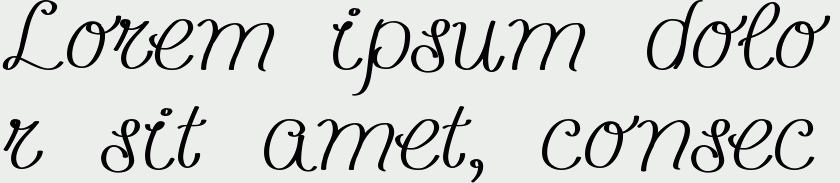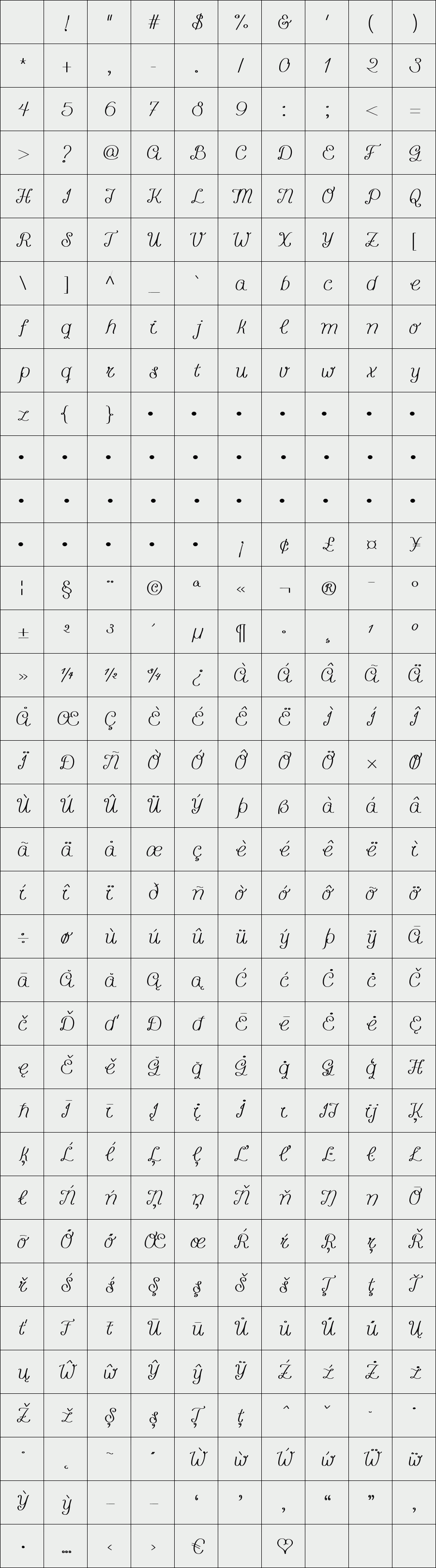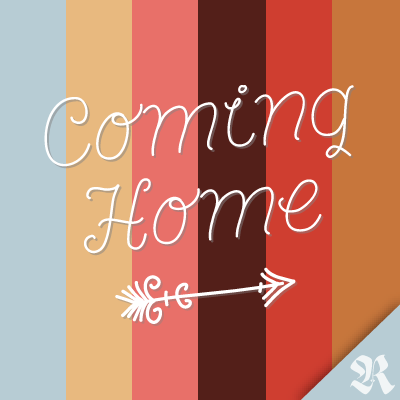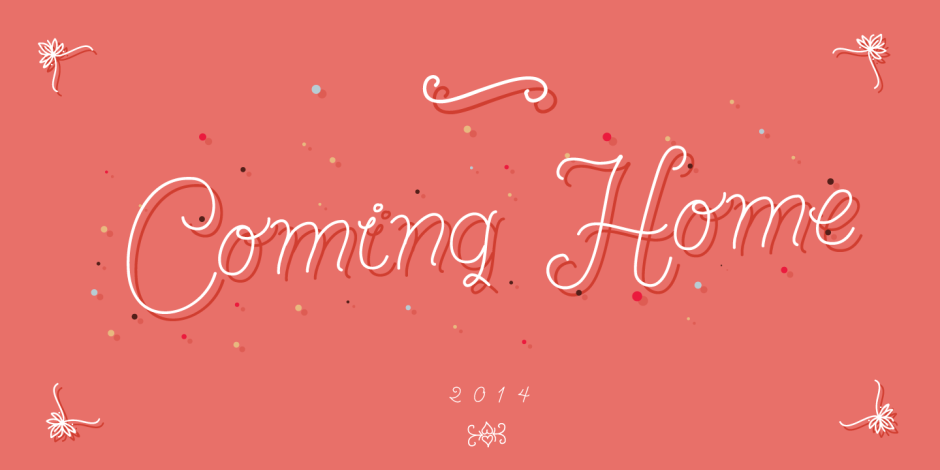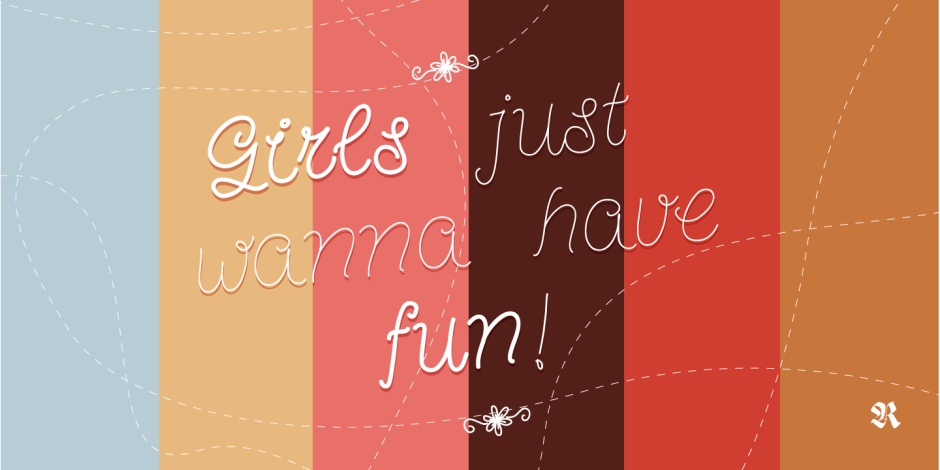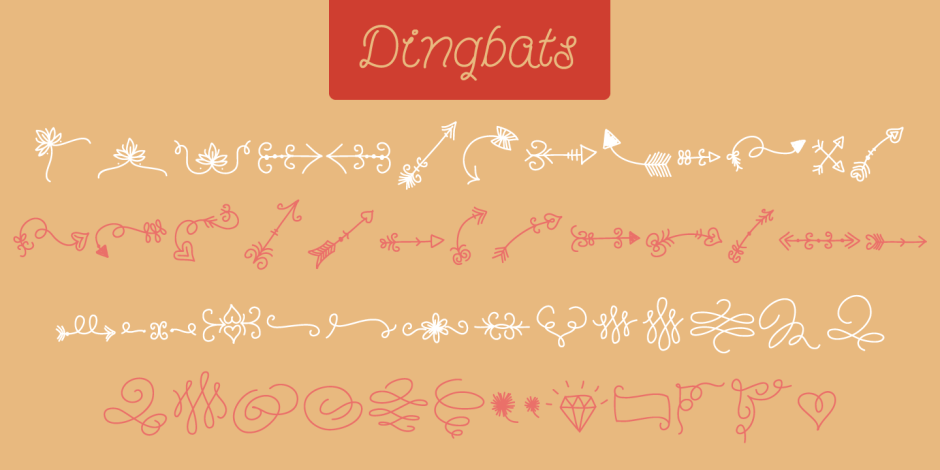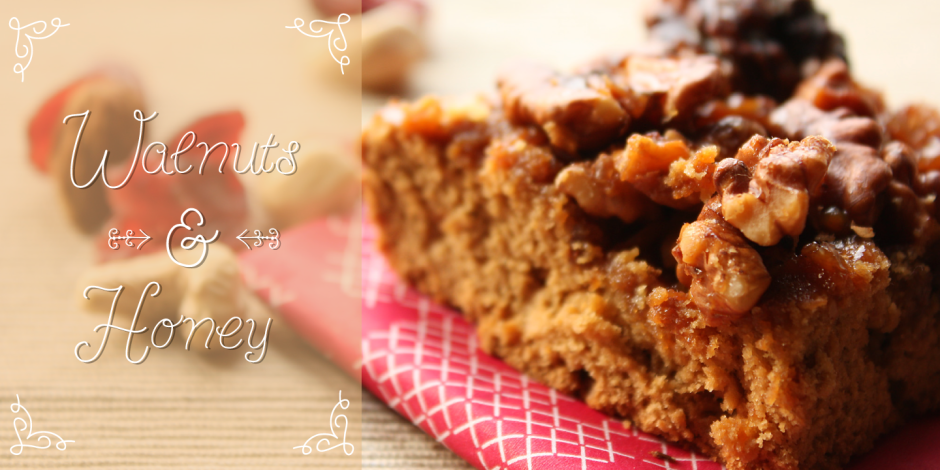
Coming Home
Coming Home is a hairline curly script based on a childish handwriting. Shapes and curves give a fresh personality and a sweet home-made touch perfect for crafts, packaging, party invitations, sweet tables and many other uses.